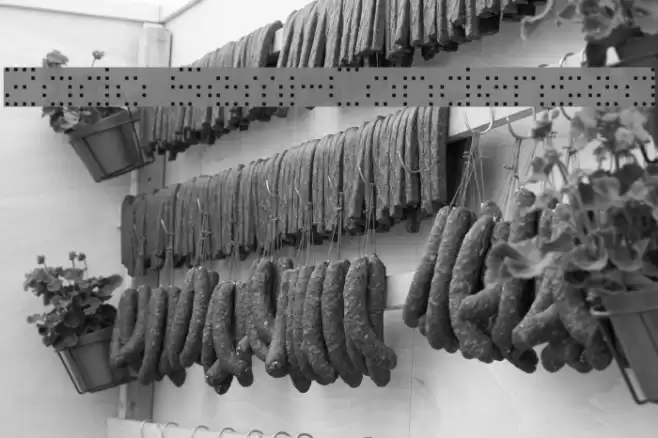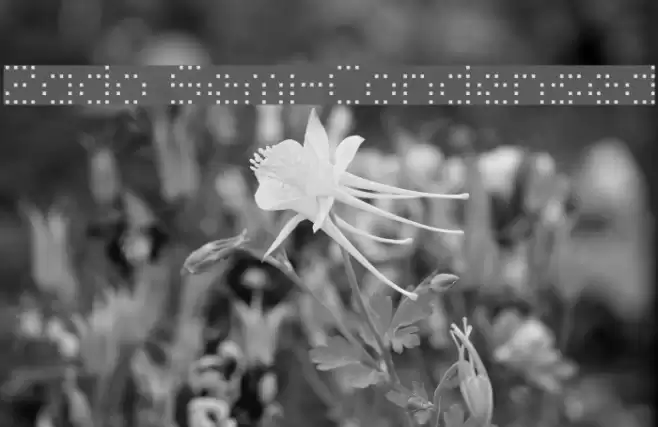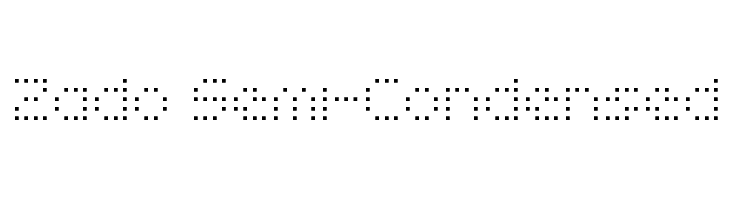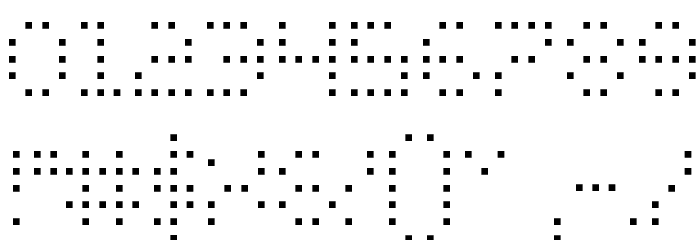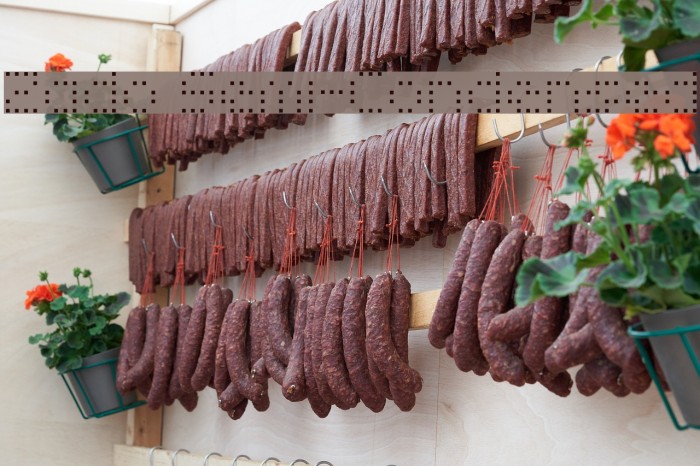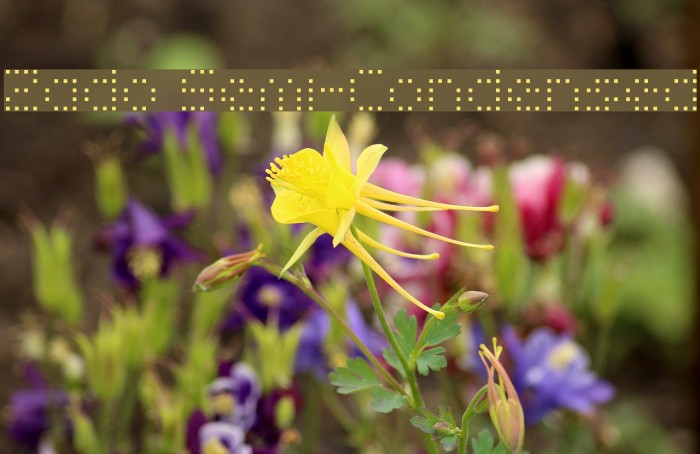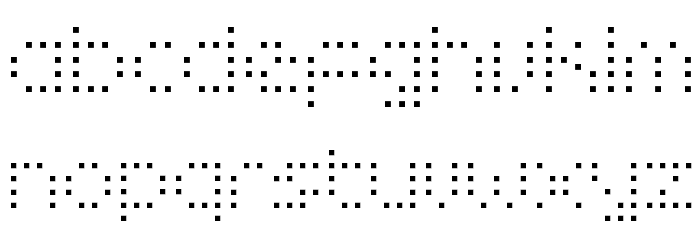
Zado Semi-Condensed Font
Zado Semi-Condensed Description
This font features a unique dot matrix style, where each character is composed of evenly spaced dots forming the shape of letters and numbers. The design is reminiscent of digital displays or retro computer screens, offering a distinct and modern aesthetic. The characters are semi-condensed, providing a compact appearance while maintaining readability. This style is particularly eye-catching and can be used to convey a sense of technology or futurism. The uniformity of the dots gives the font a clean and structured look, making it suitable for various creative applications.
A dot matrix style font with a modern, digital aesthetic from Dotted fonts.
- Proposed Projects: Ideal for digital displays, tech-themed designs, retro posters, and creative branding.
- Use Case: Headlines, Logos, Digital displays